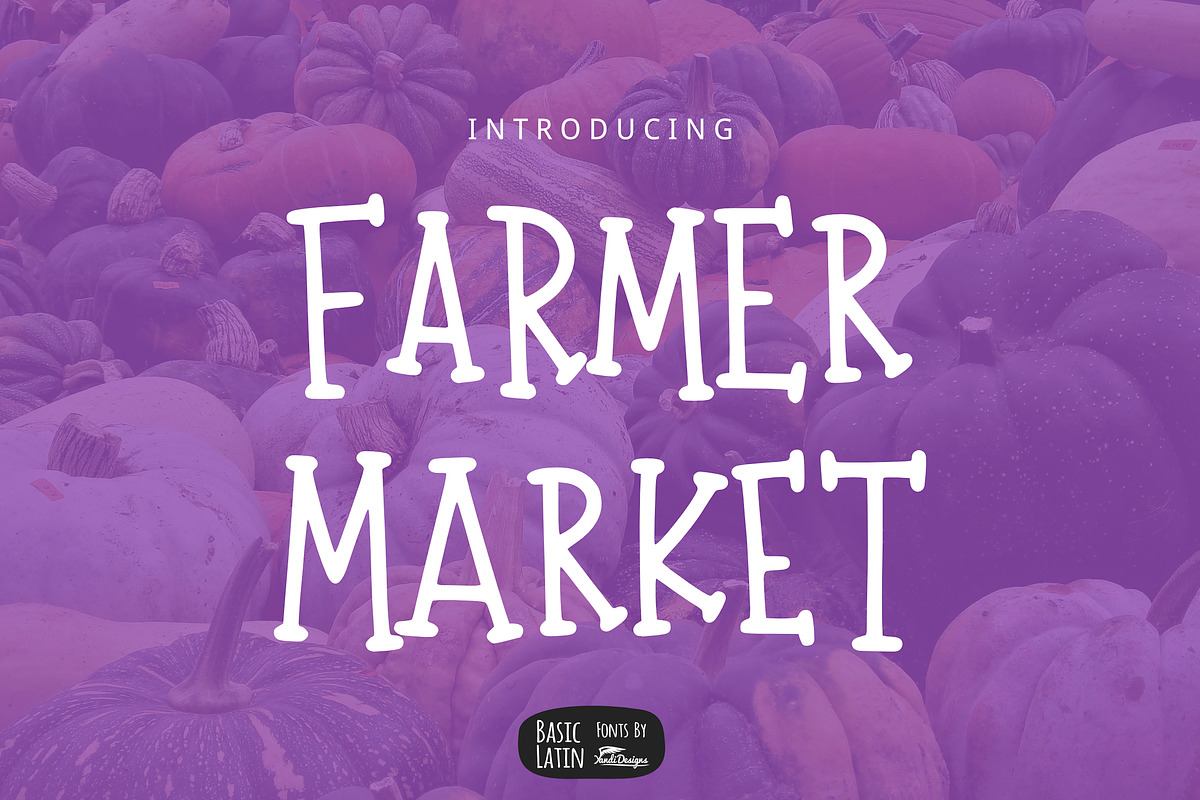
Farmer Market Simple Font Free Download
Farmer Market Simple Font Free Download is a versatile, all-caps typeface characterized by its clean and straightforward design. Ideal for a variety of projects—including children's books, quotes, logos, headings, and titles—this font brings a touch of simplicity and clarity to your creative endeavors.
Crafted with a minimalist approach, Farmer Market Simple Font Free Download offers a timeless aesthetic that complements both modern and traditional designs. Its uniform letterforms ensure readability, making it a reliable choice for both print and digital media.